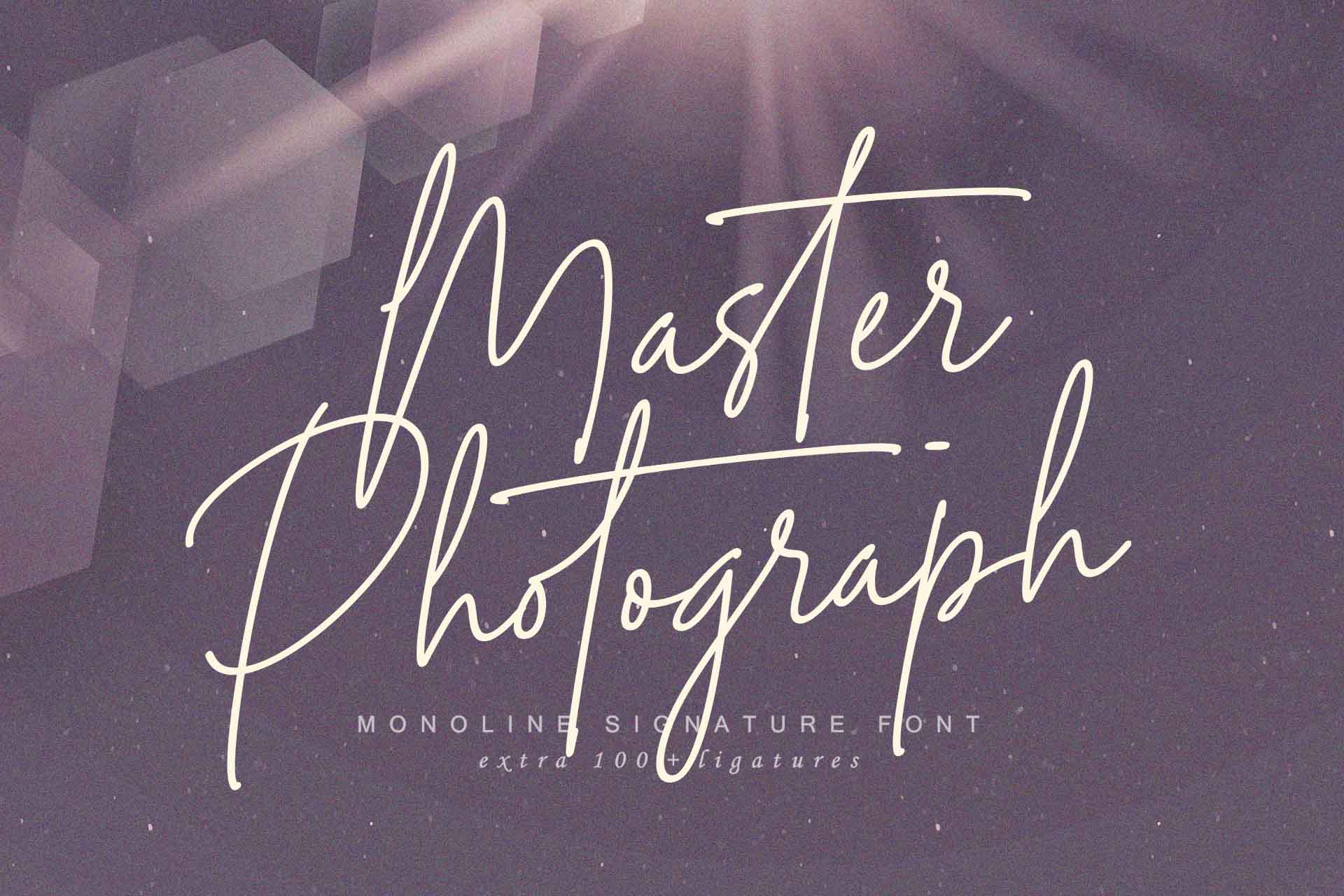
Master Photograph Font
Designed by Rangga
About Master Photograph
Master Photograph feels equally charming and elegant. It looks stunning on wedding invitations, thank you cards, quotes, greeting cards, logos, business cards and every other design which needs a handwritten touch.